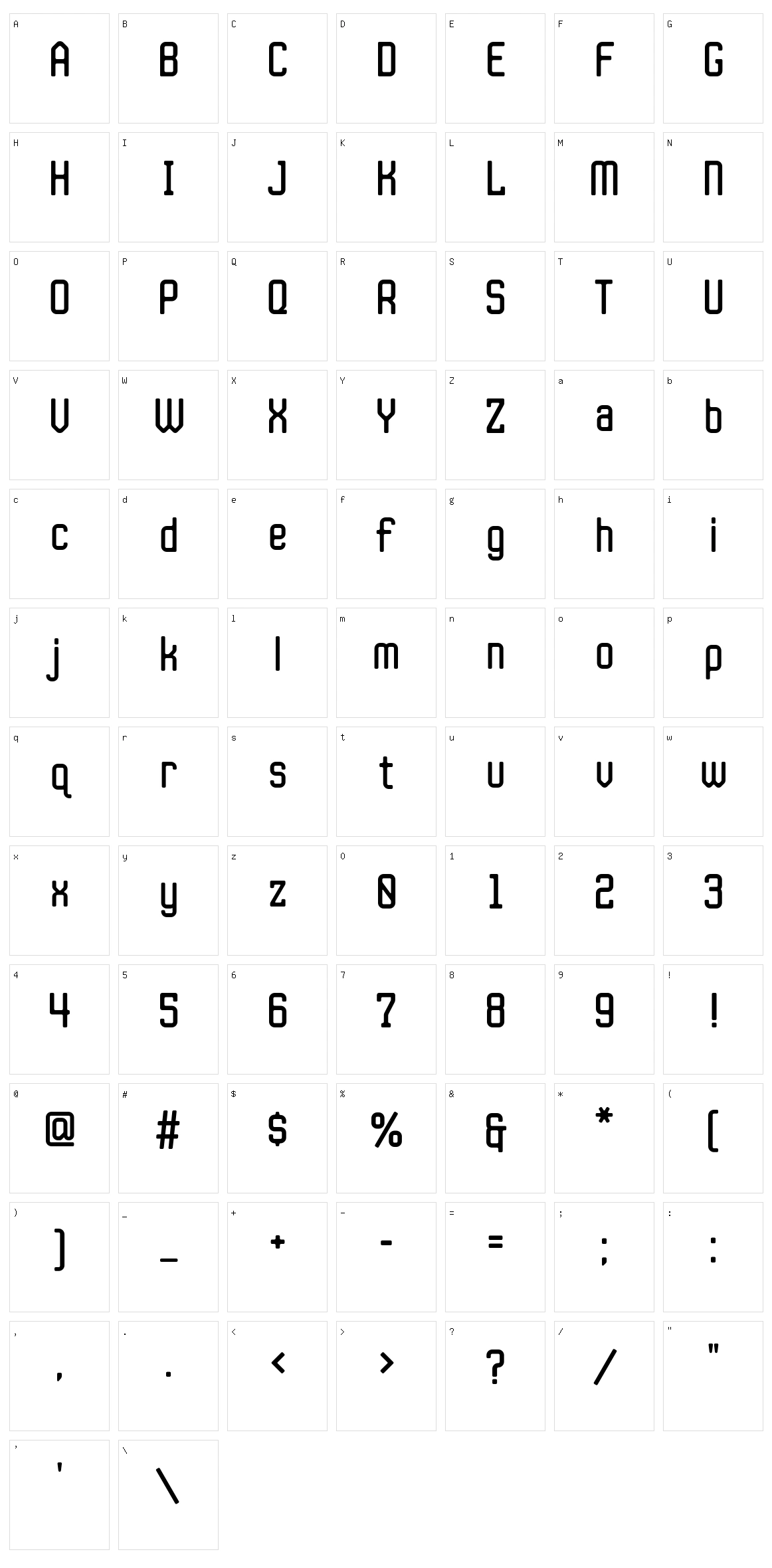
JLS Data Gothic
Everyone remembers their first. JLS Space was my first. It was the first computer format font that I created. The font was inspired by the sci-fi movie posters, book covers and comic books of my childhood. Its crude letterforms were conjured in an all night marathon session with no sketches and no planning. A simple character set, it consisted of upper case, lower case, numbers and basic punctuation. But, the project was little more than an interesting exercise, and JLS Space faded into digital limbo. This unfortunate font was ignored and lost for fifteen years. Mike Adkins, my co-conspirator, found and rescued the font file from the depths of a failing hard drive. He sent the file to me as a curiosity - a glipse back at our humble beginnings. I started puttering around with it on a whim. Without really trying, Data Gothic began to form. The interesting letter forms in Data and Space Gothic struck a cord, and I was inspired to complete the project almost twenty years after it was started.
JLS Space Gothic was inspired by the OCR and MICR fonts of the science fiction genre. Today, its character will enhance terms like Computer Diagnostic or Space Age Polymer. Posters, titles and displays will boldly blast off into the market place with these cybernetic letterforms. If Space Gothic is retro and seems limited in its genre, Data Gothic is contemporary with a broad spectrum of uses. This futuristic gothic doesn't sacrifice legibility for style. As a screen font, JLS Data Gothic is excellent for technical specifications, on screen dialogue, labeling, etc. In print, Data Gothic is a great font for text in manuals, schematics, maps and diagrams.